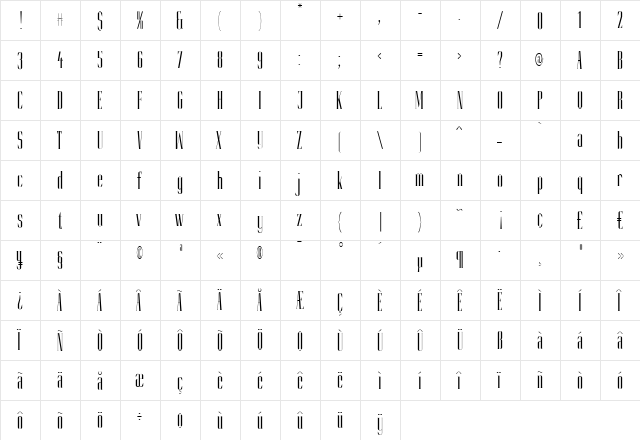
Slim Kim Light Regular
Design Context for Slim Kim Light Typeface
Slim Kim Light is a composed and adaptable typeface that performs quietly and consistently across a wide range of design contexts. Its slender proportions lend an understated elegance to any composition.